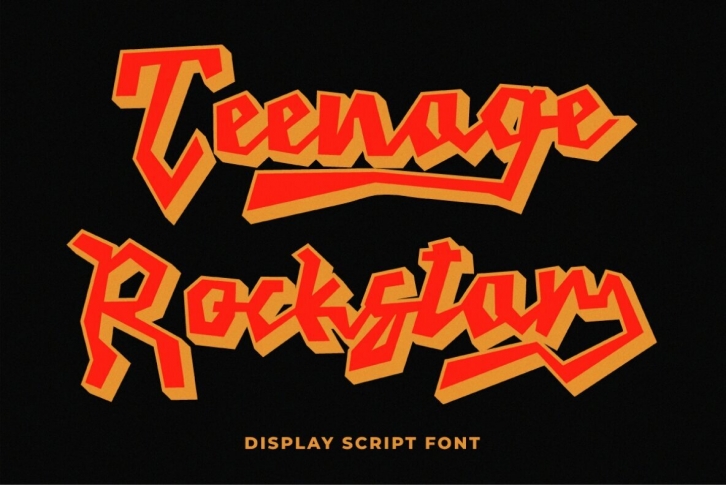
TF Teenage Rockstar Display Script Font - a stylized design that is sure to bring a touch of elegance and sophistication to your projects. Our font features swooping tails on select lowercase letters, adding an extra level of flourish and personality that is sure to capture attention.
Both font versions are meticulously crafted with attention to detail, ensuring that each letterform maintains its structural integrity while still conveying its unique style. With our display script font, you can create designs that are both elegant and impactful, giving you the freedom to express your creativity with confidence.